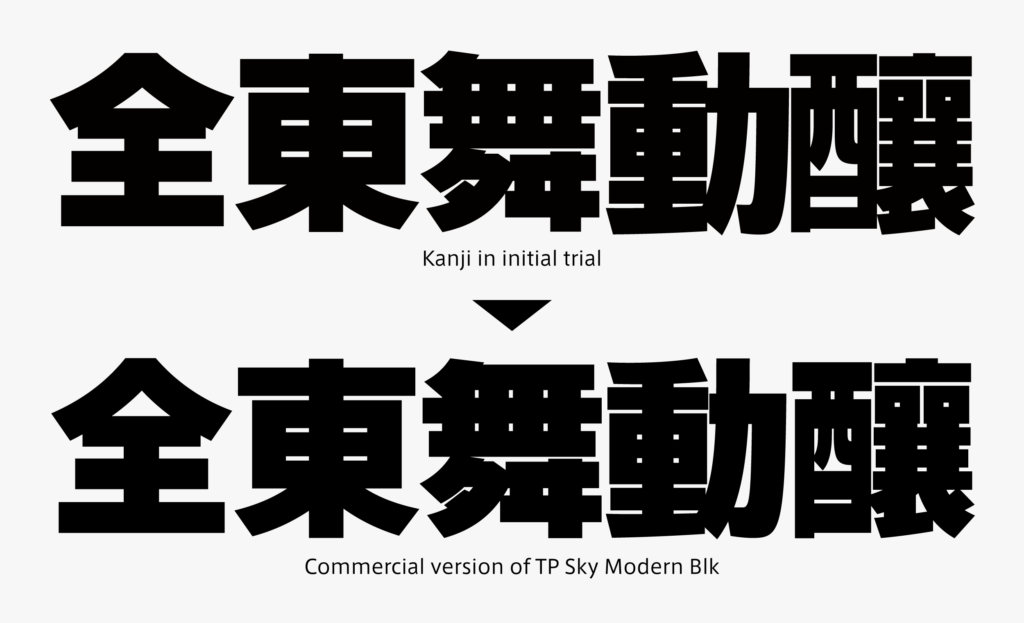
TP Sky Modern Blk Development Story 02: “Structure and Thickness”
The creation of TP Sky Modern Blk was to thicken strokes by widening the structure of TP Sky Low Contrast B. Kanji characters with fewer strokes have room to widen structure, but kanji characters with a large number of strokes have limited space to move strokes, as thick lines crowd each other. Repeating trials to arrange both types of kanji look complete even mixed in one typesetting, the widening degree of the structure was adjusted.
Among standard Japanese typefaces, we aimed towards a particularly thick weight. Assuming utilization in FitFont, etc., samples were made not only in trials of Latin for Modern Blk, but also with other Latin typefaces in combination. It was confirmed that the font can be matched with weights several levels thicker than TP Sky Low Contrast B.
When thickening the glyph with a large number of strokes, there is a method to avoid congestion by making only the major strokes thicker and other strokes thinner. However, Modern Blk was created to look as flat as possible with a modest difference between thickness and thinness. This is a design policy for the TP Sky family (low contrast series in particular). Even in other points, it is important to maintain this as a “part of the TP Sky series.”